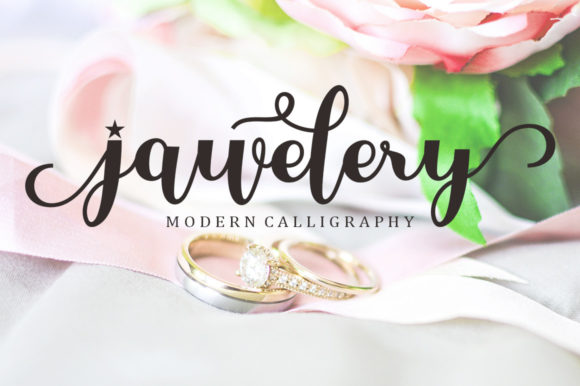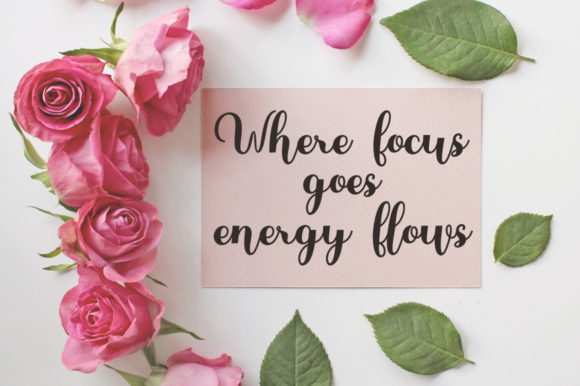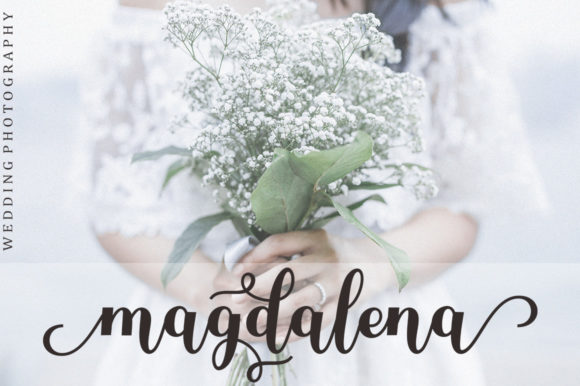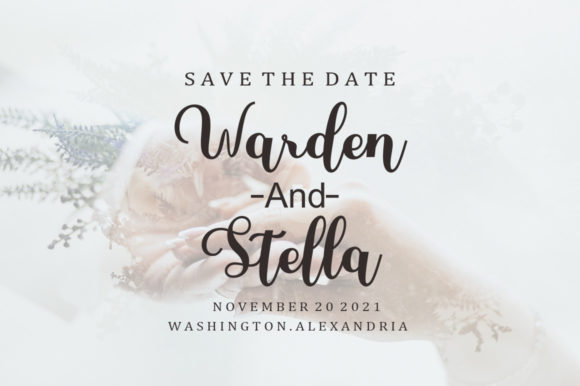
About Jawelery Font
Jawelery is a dazzling handwritten font with a unique feel and a stunning impact. It will add a luxury spark to any design project that you wish to create! This font is PUA encoded which means you can access all of the amazing glyphs and ligatures with ease!